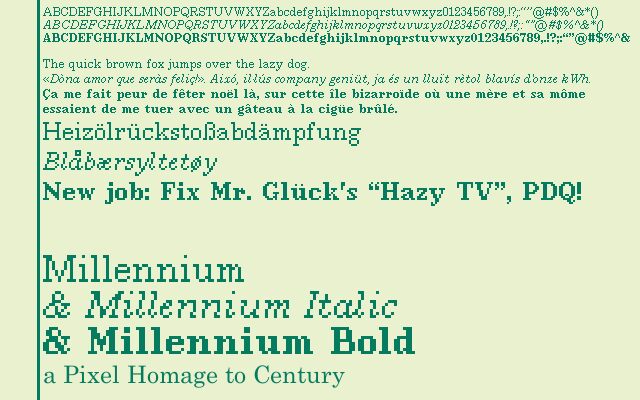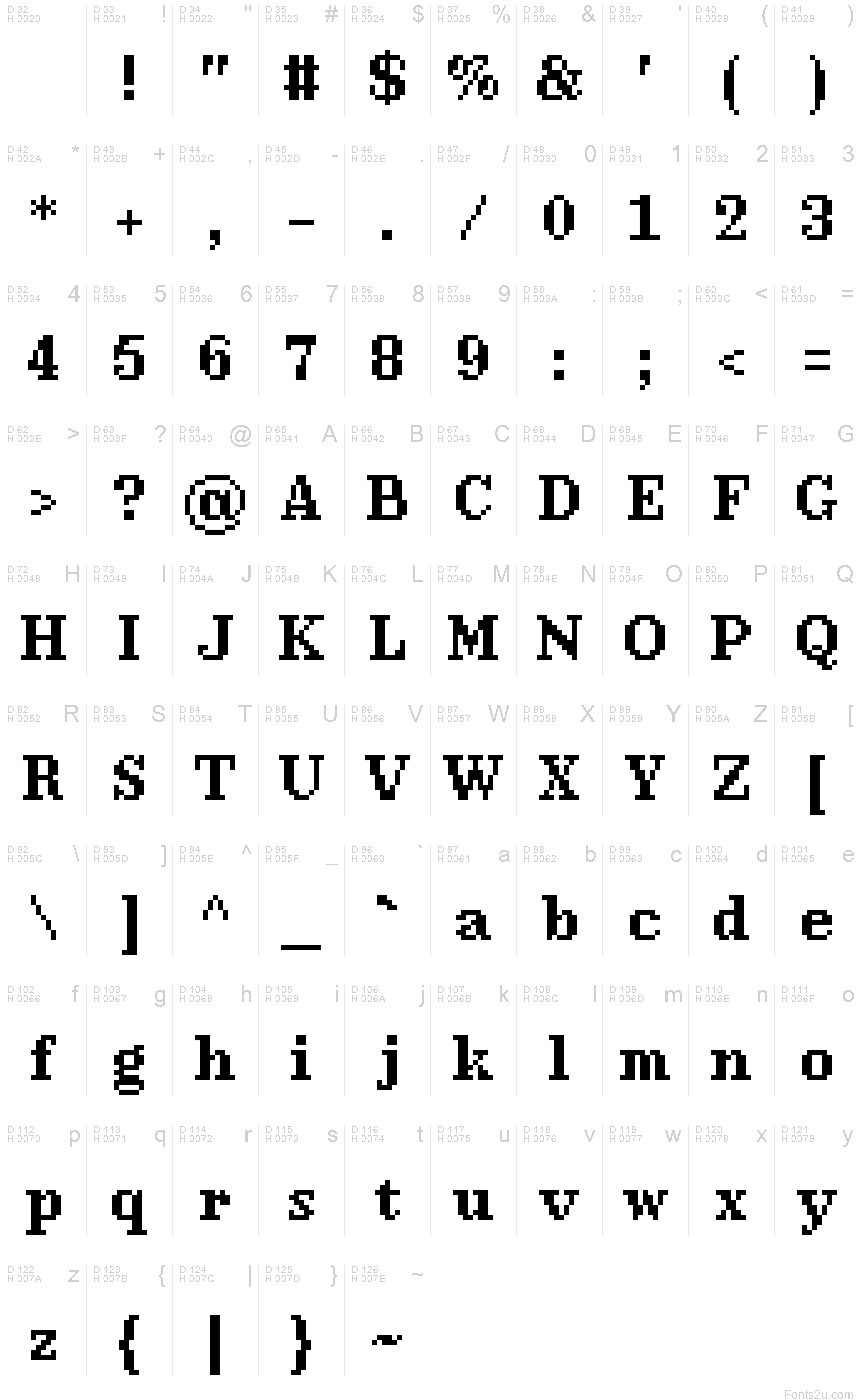
Millennium Bold
Millennium is my pixel homage to Century. This was originally made for the Keep Talking and Nobody Explodes mod English Test, but now it's here for all of you to use!